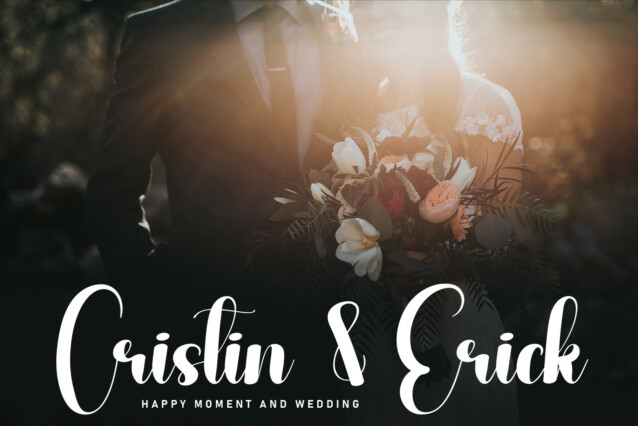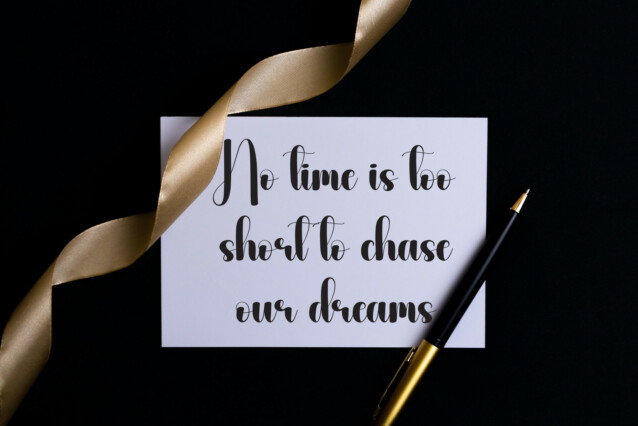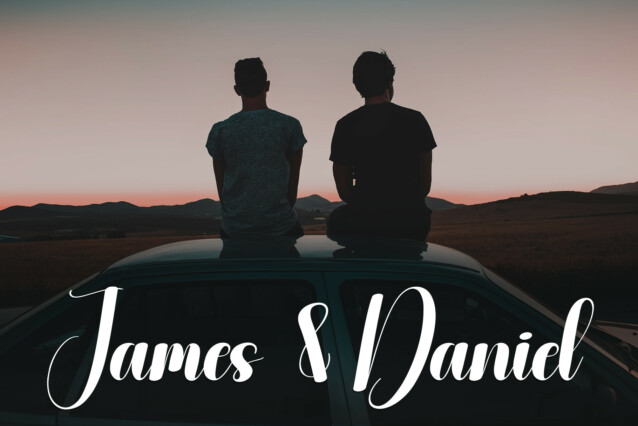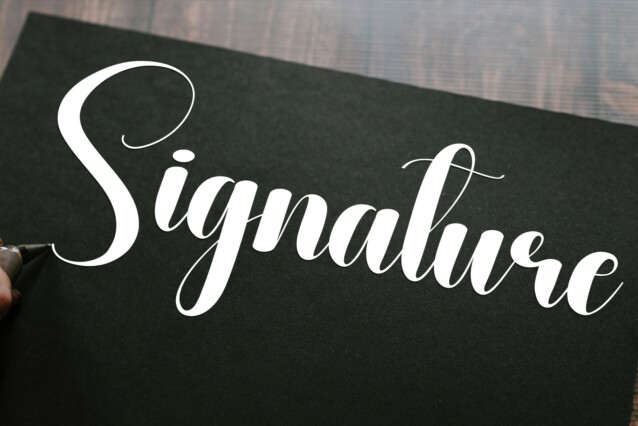
Pitchblack Script Font
Pitchblack Script Font is a sweet and friendly handwritten display font. Cute and fun, this font is ideal for writing wedding invitations, cards, or any other design that might need a playful touch!